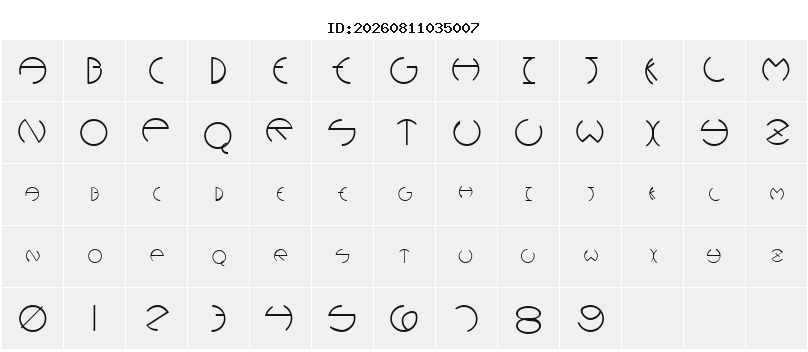
Rounders (Plain):001.001 Preview
About Rounders (Plain):001.001.ttf
Rounders (Plain):001.001.ttf is a modern, elegant sans-serif font designed for ultimate readability and visual harmony. Perfect for branding, headlines, web design, and print materials.